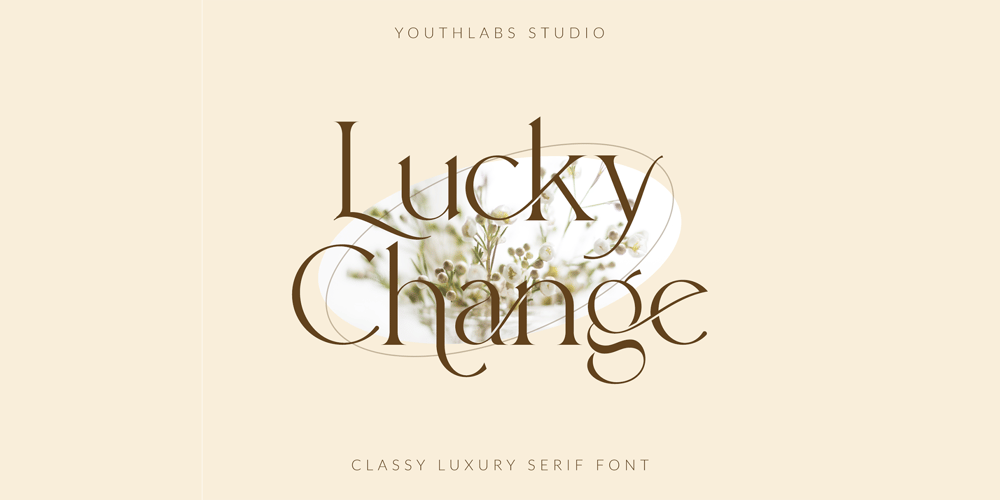
Lucky Change Font Family was designed by Fathi Al Ghazi and published by Youthlabs. Lucky Change contains 1 styles and family package options. Introducing Lucky Change Font – A Brand New Serif Font with Classy and Premium Shape, More Opentype Feature, more neat curvesLucky Change Font Inspired by Simply and Luxury Typography. Lucky Change Font is a very versatile font. you can use this font to various design. Basics can improve more than 200 alternates character where can collaborate with premade logos and vector packWHAT’S YOU GET ? Unique Letterforms Works on PC & Mac Simple Installations Accessible in the Adobe Illustrator, Adobe Photoshop, Microsoft Word even work on Canva! Fully accessible without additional design software. I really hope you’ll get pleasure using Kagnue font and it will be perfect addition to your font collection! Contact me with an inbox message If you have any question. Thank you! Happy Creating.